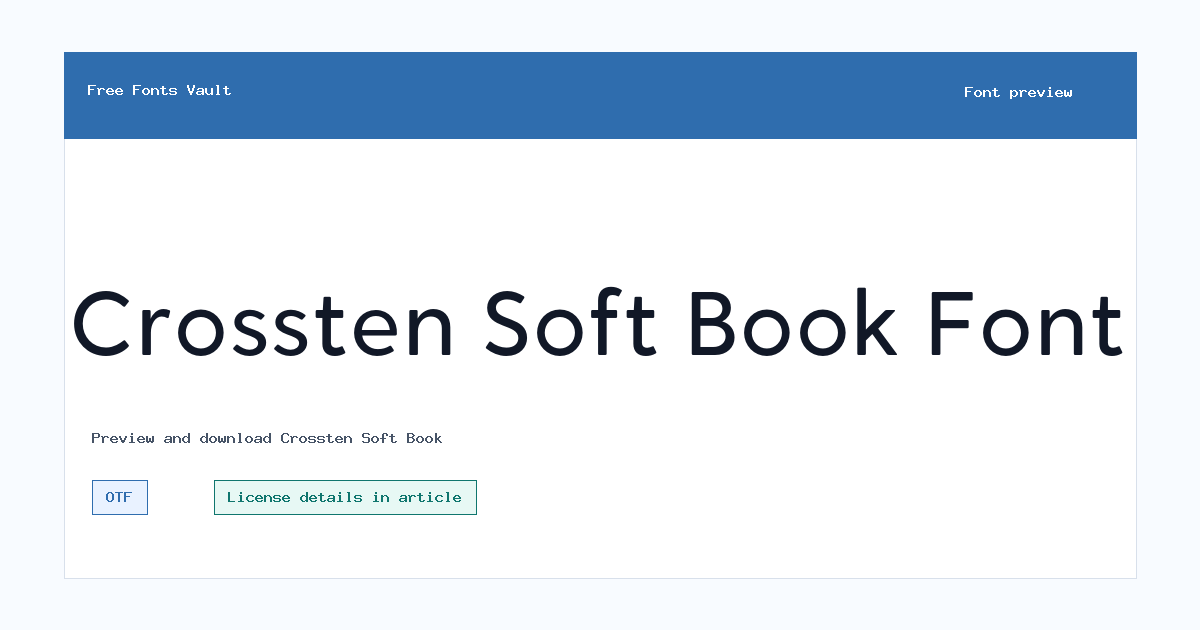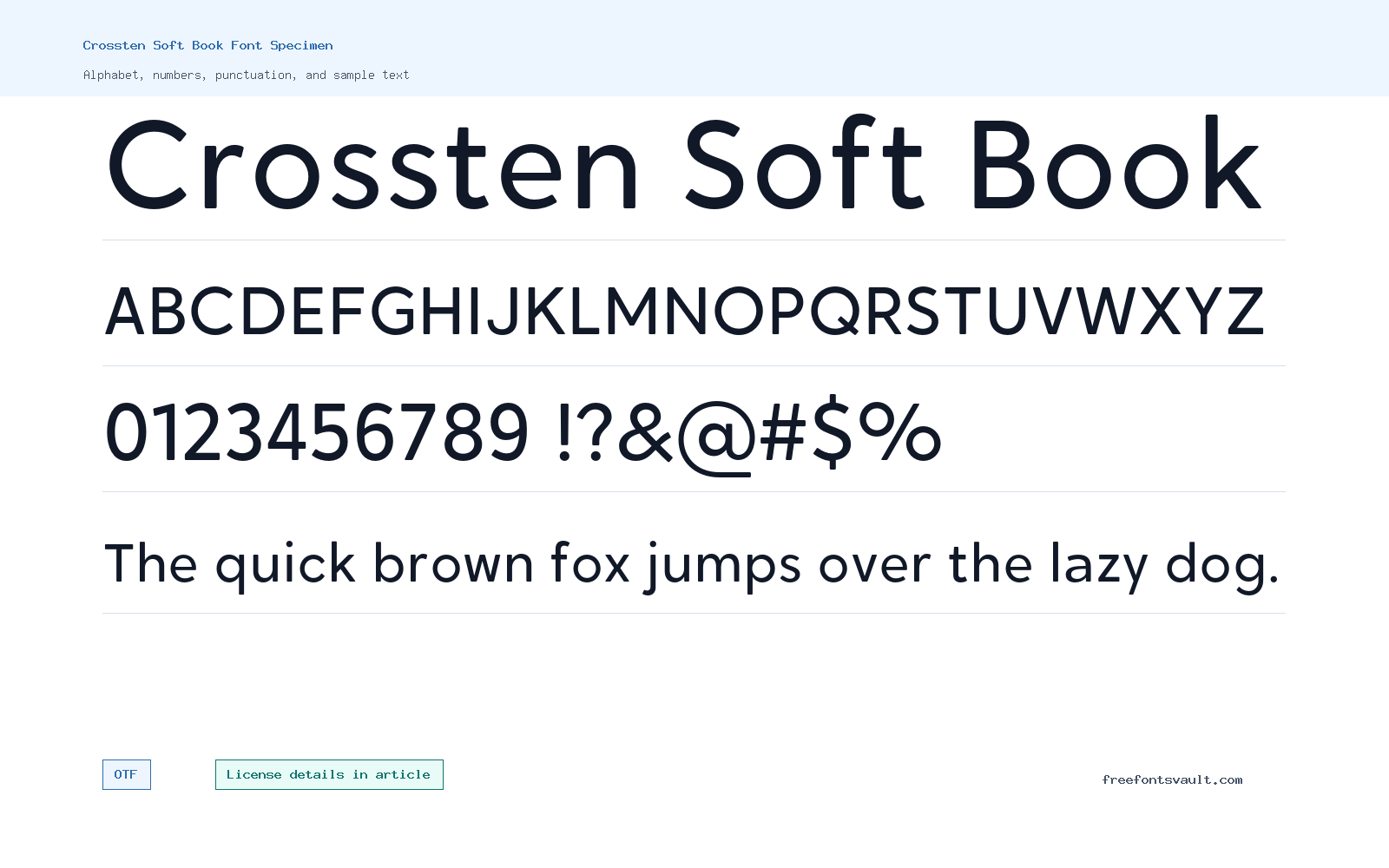
Crossten Soft Book
Crossten Soft Book is a clean OTF font credited to Emre Guven, useful when you want a soft, steady sans-serif tone without jumping straight to a heavy weight.
Crossten Soft Book sits in a practical middle ground: calm enough for interface-style text and refined enough for light display use. The Book style is a good place to start when a layout needs gentle structure rather than a loud headline. Try it in the preview with real labels, section headings, product names, and short paragraphs so you can see whether the spacing feels right for your project.
This kind of soft sans serif can work well in modern branding, app mockups, packaging tests, menus, quote cards, and web sections. It still needs size testing. At very small sizes, soft shapes can lose crispness; at very large sizes, spacing details become more visible. Preview names, numbers, punctuation, and common UI words before downloading.
- Soft sans-serif feel for clean, approachable layouts
- Useful for headings, labels, short text, and brand mockups
- Website headings, labels, menus, and UI-style text
- Brand-name testing and logo draft layouts
- Packaging concepts, quote cards, and social graphics
- Clean editorial sections with short supporting copy
- Product mockups that need a soft modern sans serif
- Pairing with a heavier accent font for contrast
Use Crossten Soft Book where a clean, soft voice helps the design feel polished but not heavy. Test lowercase text, numerals, punctuation, and line height; if you need long reading, compare it against a dedicated body font before making the final choice.
It suits clean headings, labels, UI mockups, brand tests, packaging concepts, and short sections where a soft sans-serif tone is useful.